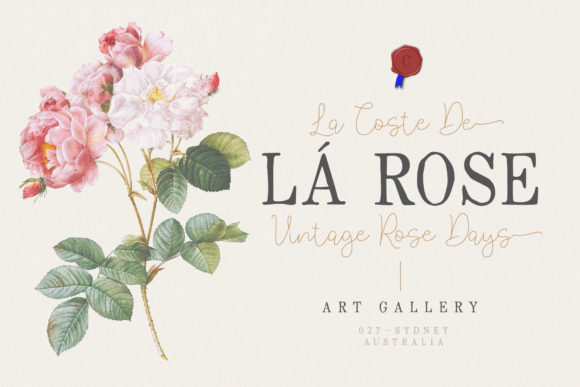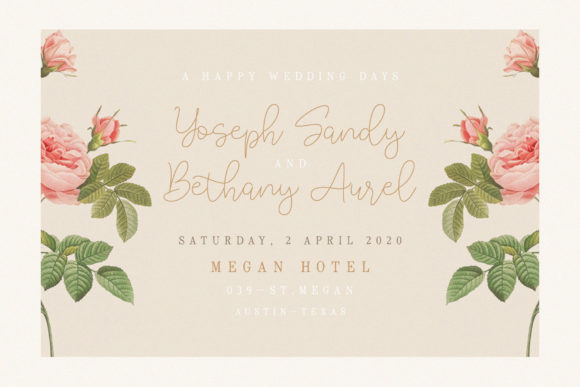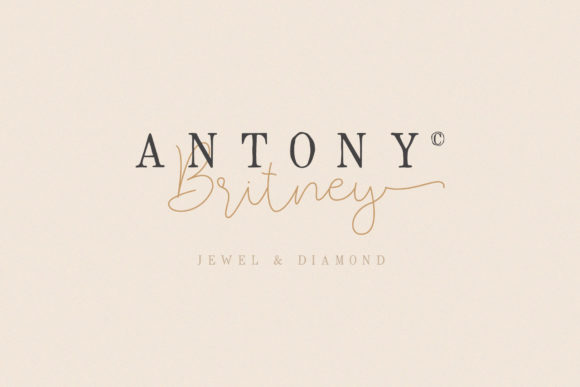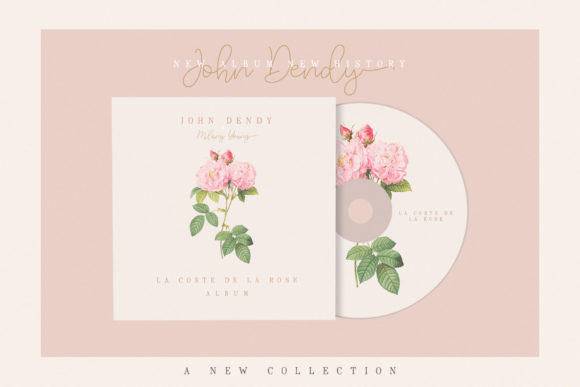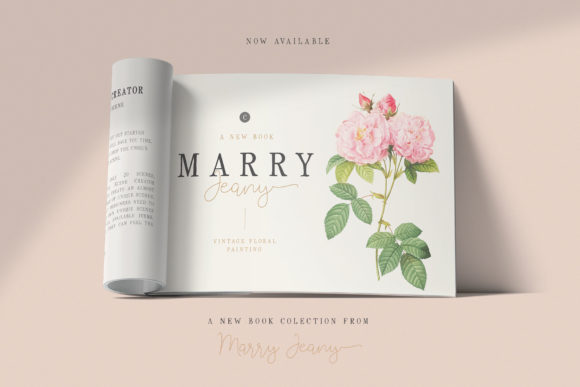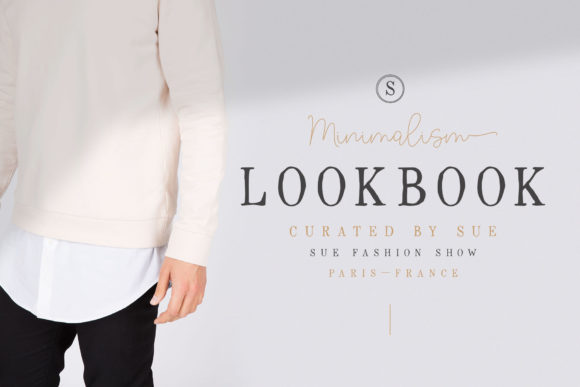
Introduction to Rovey Duo Font
As a designer, you’ve probably experienced that moment when the perfect font comes along and elevates your entire project. For me, that moment was when I discovered the Rovey Duo Font – a stunning combination of the original Rovey font and the elegant Lucylane swashes. The result is a truly unique and high-quality design resource that adds a touch of effortless elegance to any creative project.
The Rovey Duo Font is more than just a pretty face – it’s a valuable tool for designers looking to add a personal touch to their work. With its beautiful swashes and transparent background, it’s the perfect choice for anyone looking to create a truly outstanding design project. And the best part? It’s available for free download, making it a must-have resource for any designer looking to elevate their craft.
Key Features of Rovey Duo Font
- High-quality design resource ideal for creative projects requiring a unique aesthetic.
- Features a transparent background, making it easy to customize and integrate into various designs.
- Comes in two distinct font styles, offering versatility for a range of creative projects.
Honest Review: Rovey Duo Font
As a designer, I’m always on the lookout for high-quality fonts that can elevate my creative projects. Recently, I stumbled upon the Rovey Duo Font, and I’m excited to share my honest review with you.
- Unique and elegant design: The Rovey Duo Font has a distinctive look that sets it apart from other fonts in its category.
- High-quality glyphs: The font includes a wide range of glyphs, including uppercase and lowercase letters, numbers, and punctuation marks.
- Transparent background: This is a big plus for designers who want to use the font on a transparent background without any issues.
- Limited language support: The font only includes a limited number of languages, which may be a drawback for designers who need to support multiple languages in their project.
- No italic or bold variants: While the font is elegant, it would be great to have italic and bold variants to add more depth and emphasis to designs.
Overall, I’m impressed with the Rovey Duo Font’s unique design and high-quality glyphs. While it has some limitations, it’s still a valuable resource for designers who want to add a touch of elegance to their creative projects.
Introduction to Rovey Duo Font
Rovey Duo Font is a high-quality design resource ideal for creative projects. This versatile font features a transparent background, making it perfect for layered designs.
Tips for Getting the Most Out of Rovey Duo Font
To maximize the effectiveness of Rovey Duo Font, consider the following tips:
- Use the font in combination with other high-quality design resources.
- Take advantage of the transparent background to create visually appealing layered designs.
Common Use Cases for Rovey Duo Font
Rovey Duo Font is suitable for a wide range of creative projects, including:
- UI/UX design
Compared to Rovey Duo Font, Alex Brush Font has a more refined and sophisticated look, while Rovey Duo Font has a more playful and cursive feel. Alex Brush Font is also more versatile and can be used for a wide range of design projects.